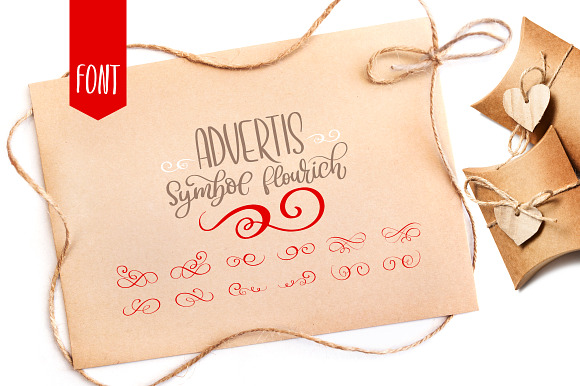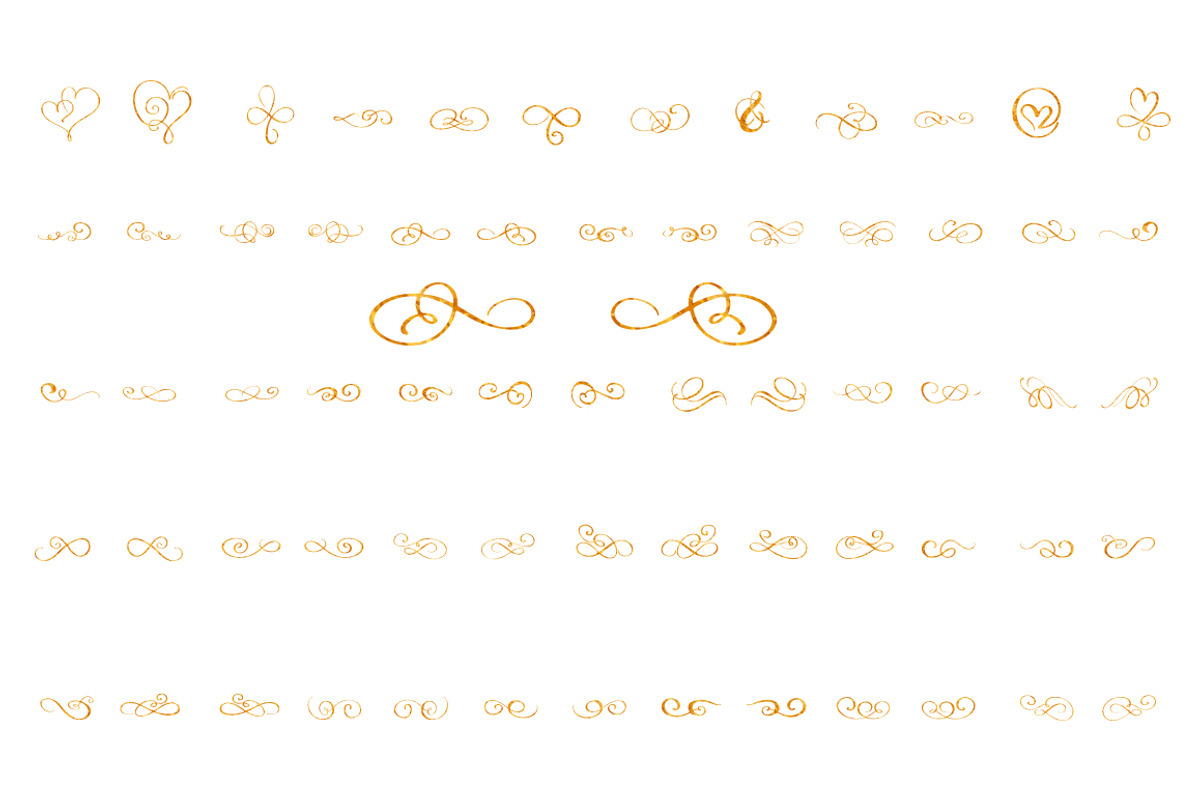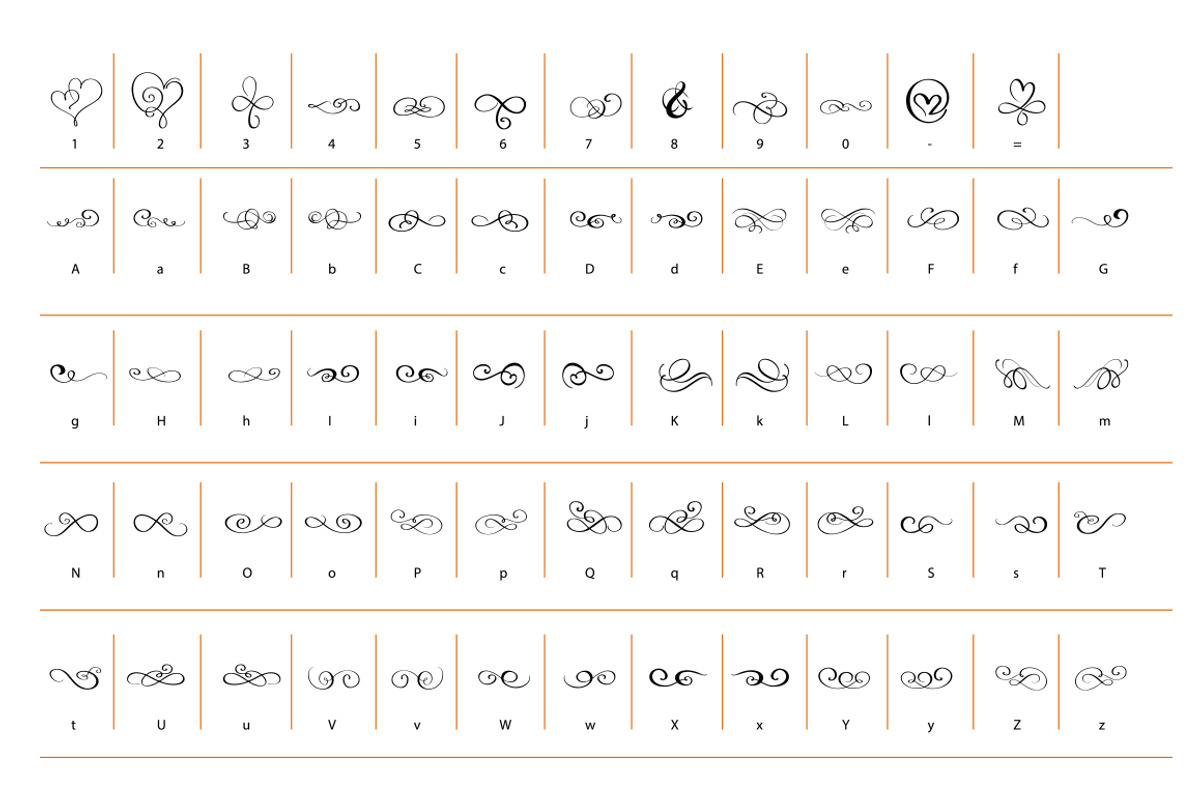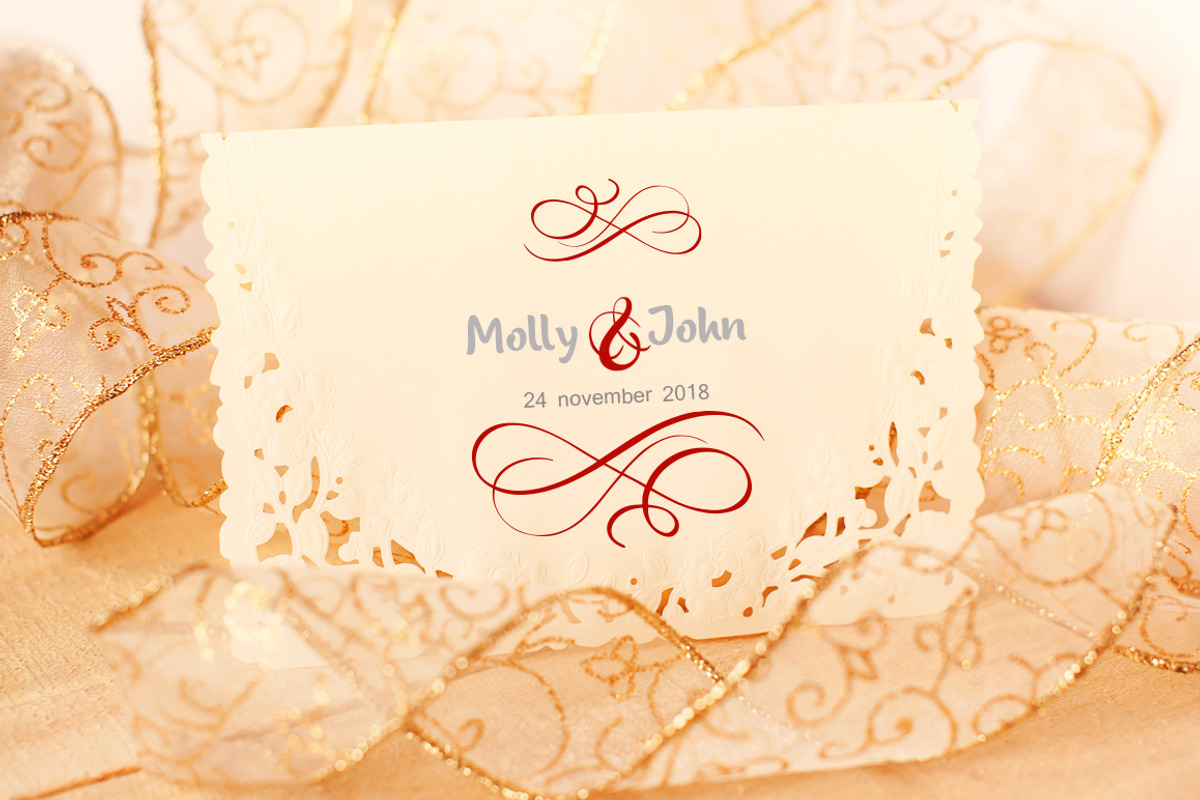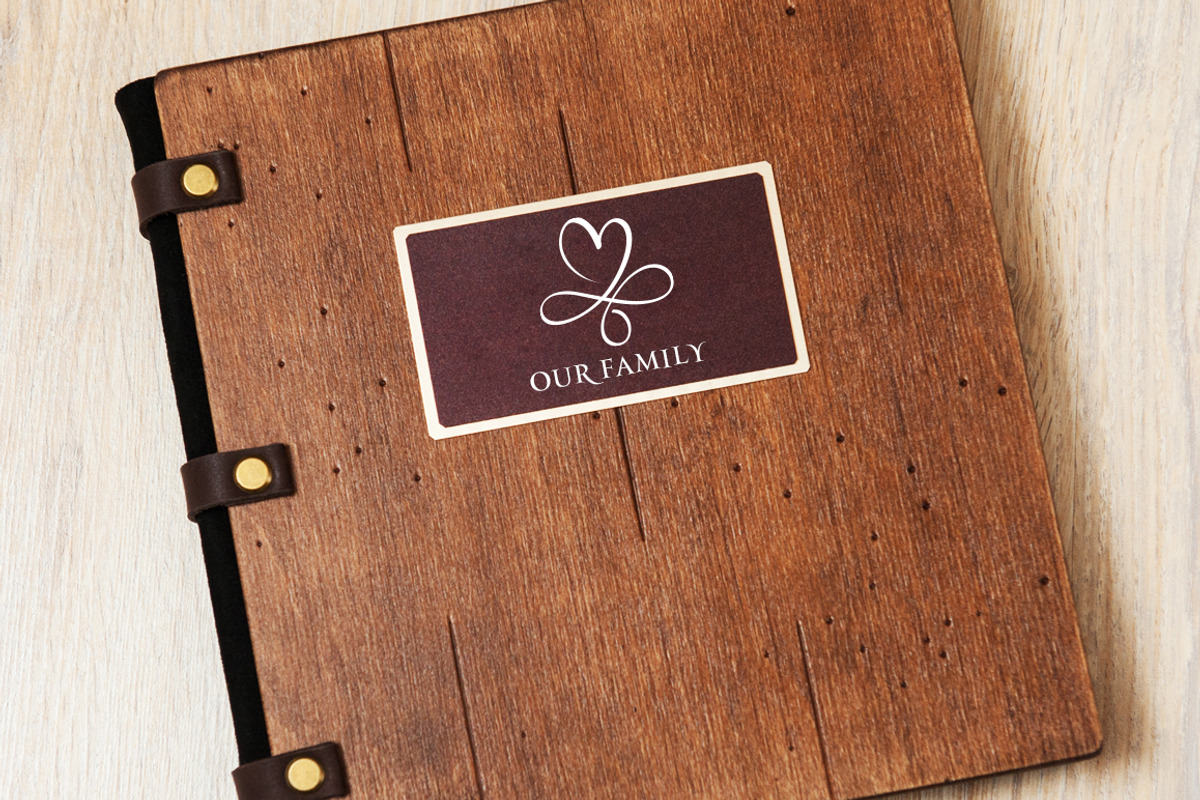
Advertis Ornament Flourish Font
Advertis includes unique flourishes that give a charm and romantic holiday mood ornaments, greeting cards, invitations, etc. Thin, elegant calligraphic lines like a light breeze give freshness and dreaminess to your handmade creations.
The font is composed in such a way that you can do a mirror image of the flourishes by pressing the keys uppercase and normal (for example, A a, B b, C c).
Decorate your albums, greeting cards (Christmas, Birthday, other holidays), logos, phrases, gift shops, internet shops presentation.
All letters on photos it`s for example. You will have only flourishes font.
This font contains only dingbat symbols. There are no letters in it, only symbols.